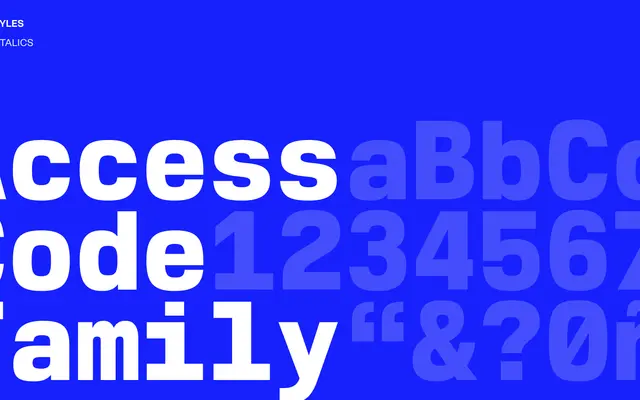
Access Code specimen from Playtype
A monospaced typeface from Playtype with a technical, code-inspired character.
Access Code draws on the visual language of coding and terminal environments, fitting the Playtype catalogue's interest in functional yet considered design. The page offers little detail, but the name alone positions it clearly within the monospaced tradition. Suited to editorial contexts where a technical or screen-native aesthetic is required.